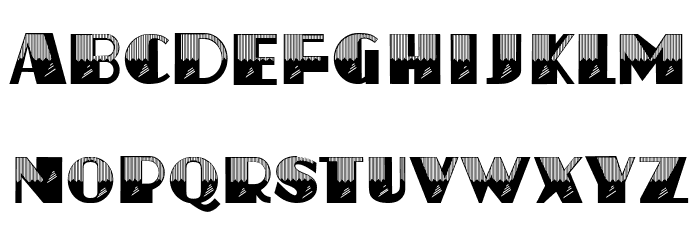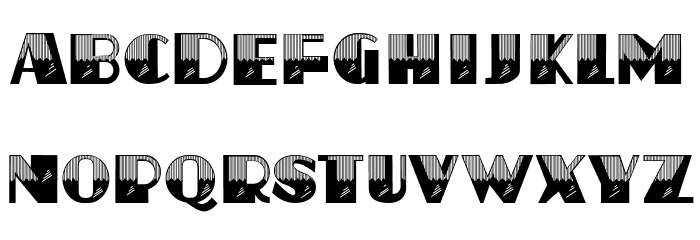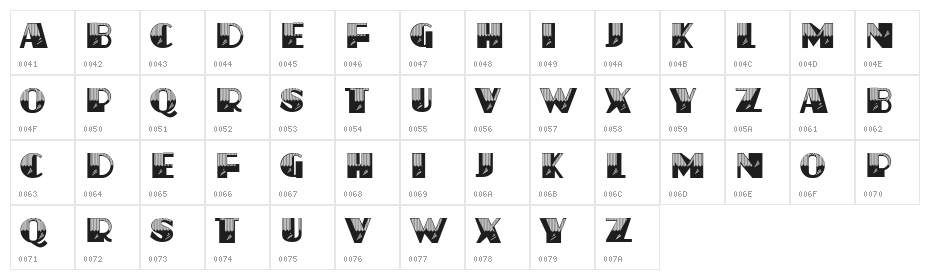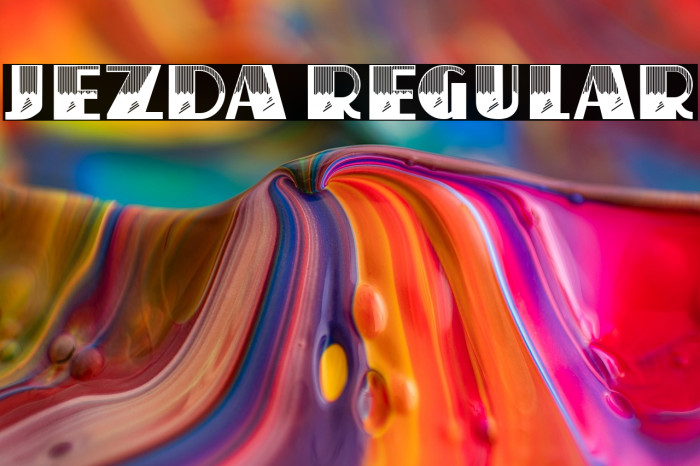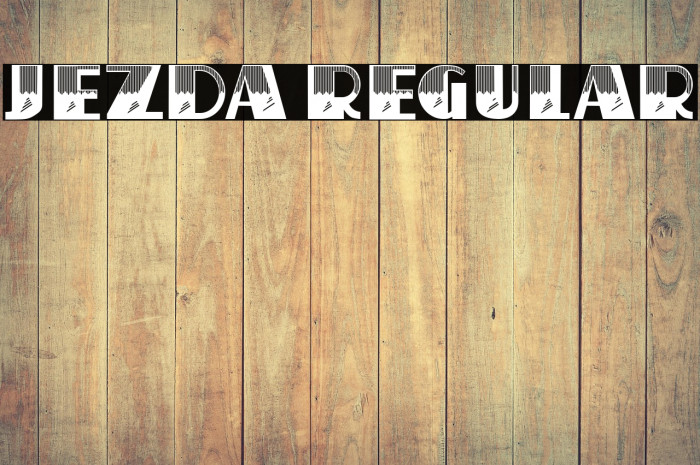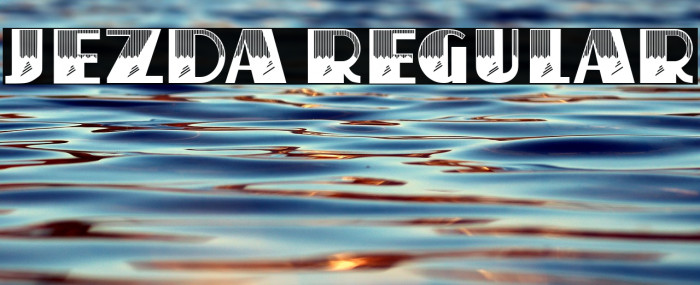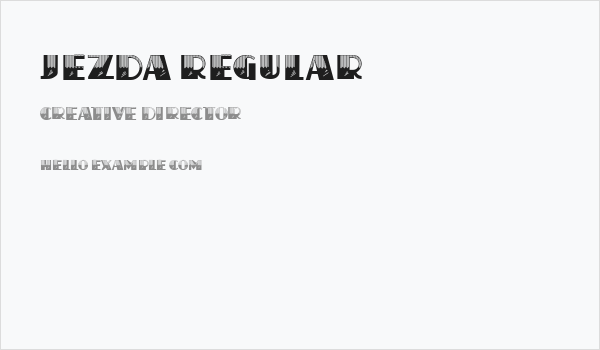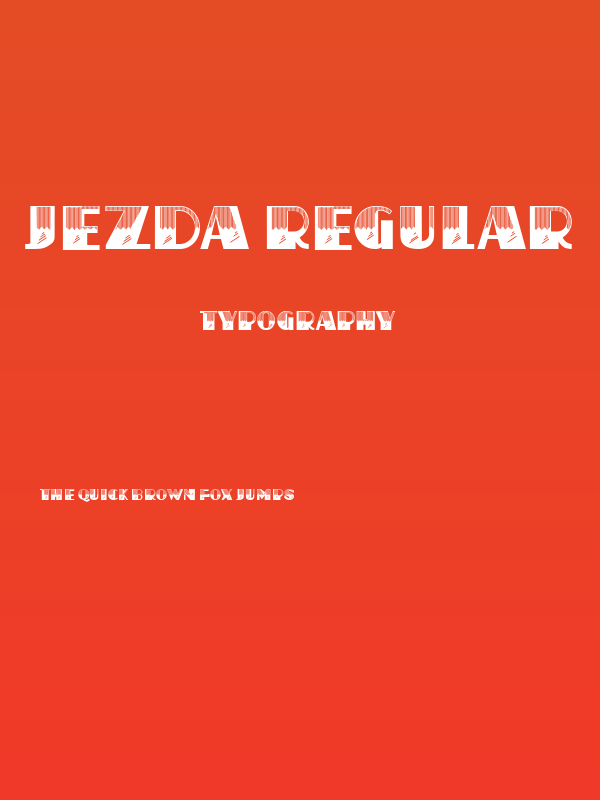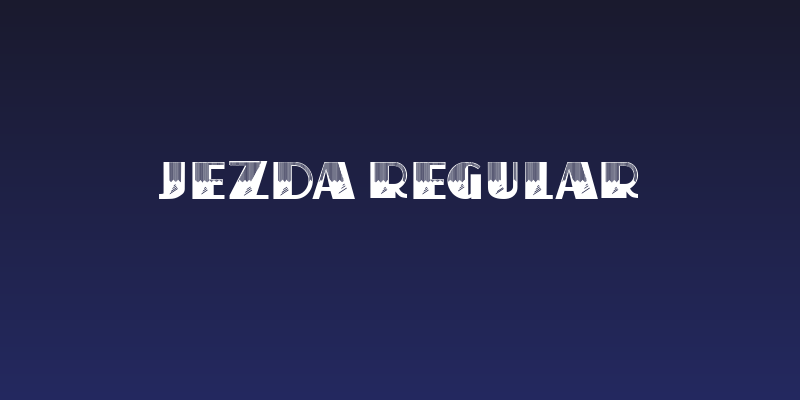
Jezda Regular Font
This font features a bold, decorative style with a unique striped pattern within each character. The uppercase letters are designed with a strong geometric structure, giving them a modern and eye-catching appearance. The font's design incorporates a mix of solid and striped areas, creating a dynamic visual effect that is both playful and sophisticated. The characters are evenly spaced, ensuring readability while maintaining a distinct style. This font is ideal for projects that require a bold statement and a touch of creativity. Its decorative elements make it suitable for headlines, posters, and branding materials where a striking visual impact is desired.
A bold, decorative font with a unique striped pattern and geometric structure.
- Font: Jezda Regular
- Proposed Projects: Ideal for headlines, posters, branding, and any project needing a bold visual impact.